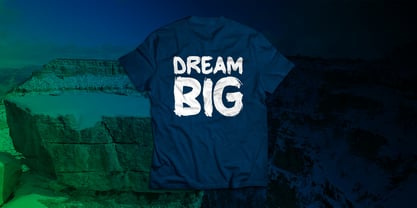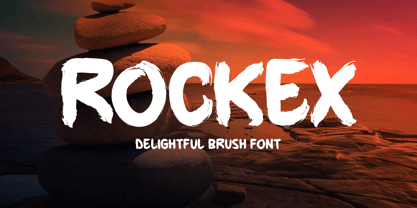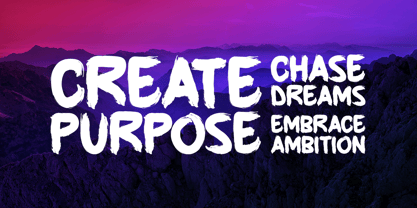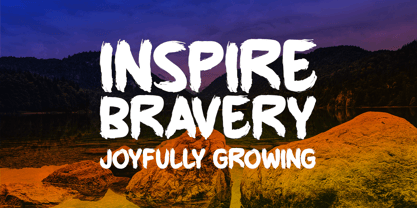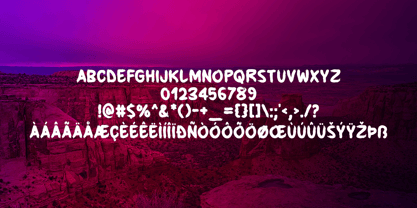
Rockex
The Rockex Font Family was designed by Md. Sohail Bhuiyan and published by Seemly Fonts. Rockex contains 1 styles. More about this family
Rockex is an expressive brush-style font that blends bold strokes with a naturally handcrafted charm. Its energetic movement and artistic texture make it an excellent choice for a wide variety of creative projects, including logos, stationery, t-shirts, posters, music covers, flyers, website headers, and print designs. Whether you’re aiming for a dynamic, edgy look or a warm, hand-painted feel, Rockex brings character and visual impact to every design.